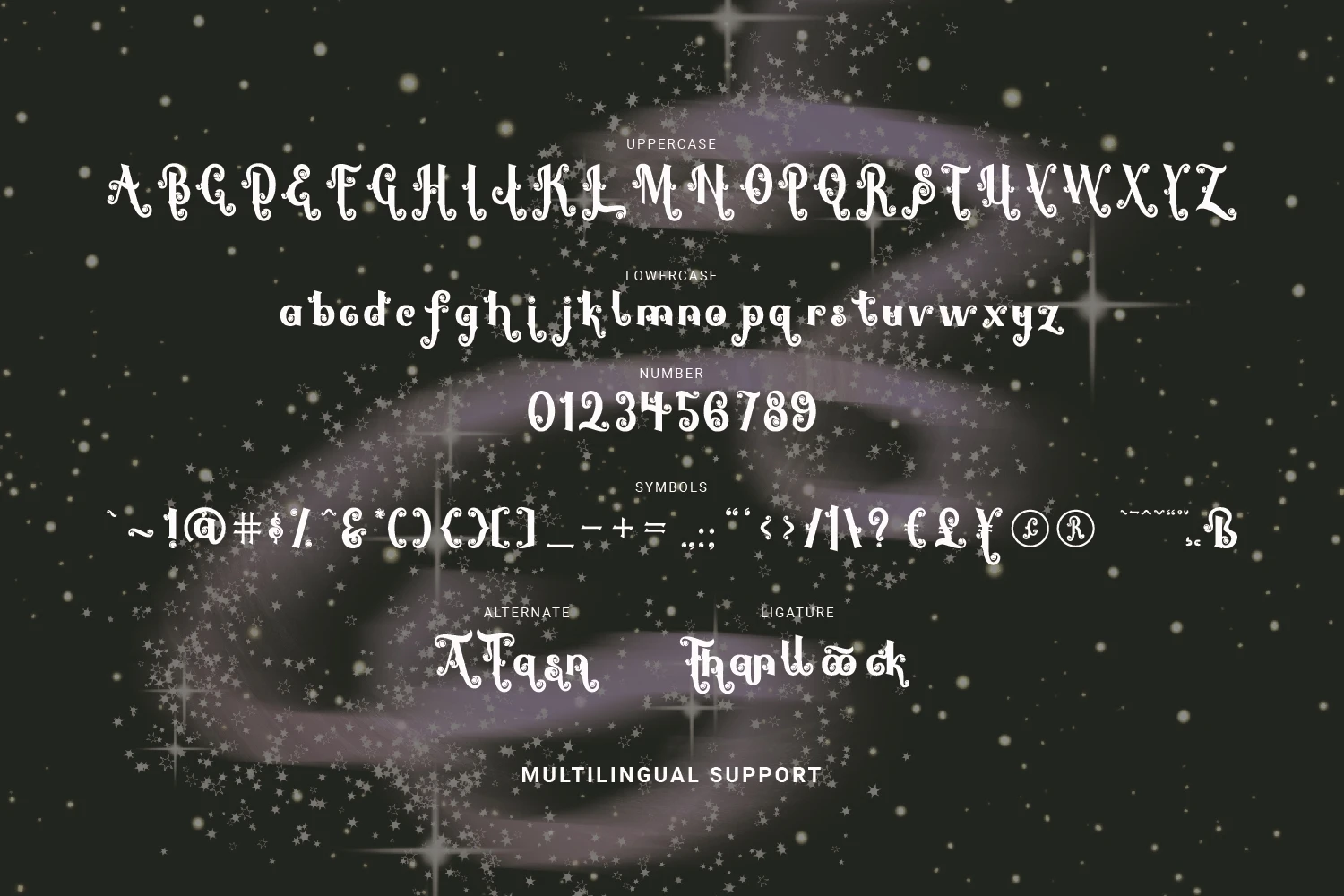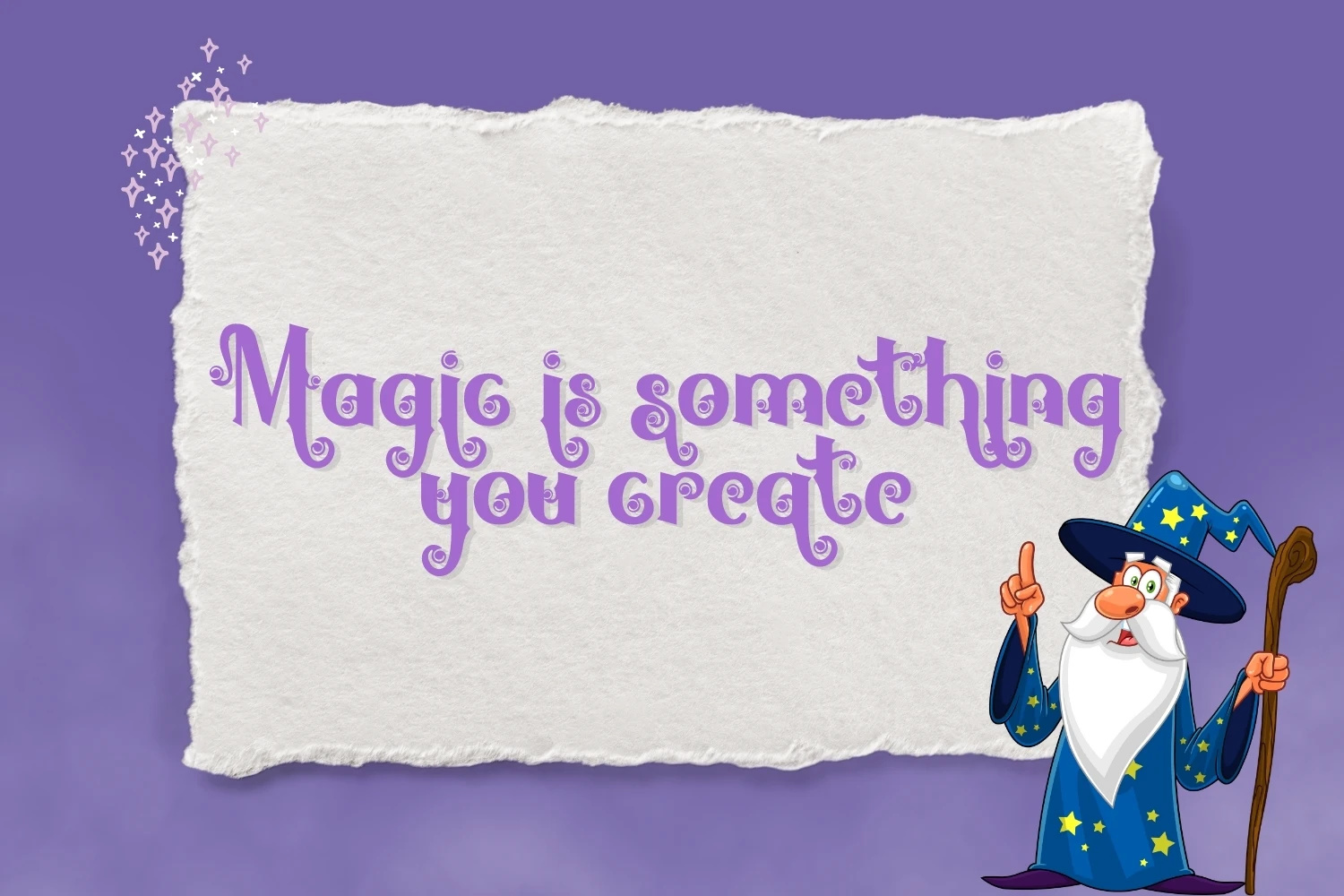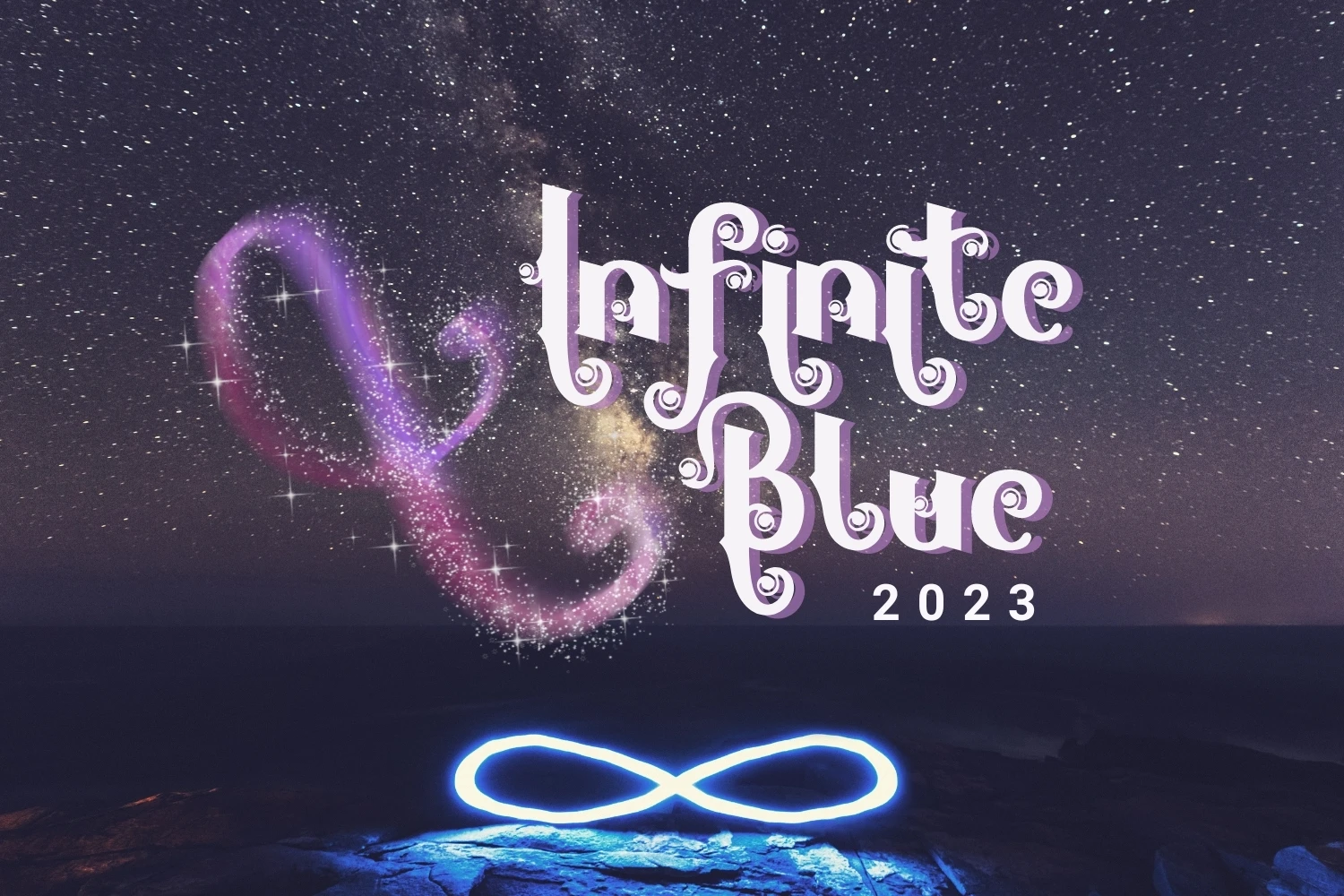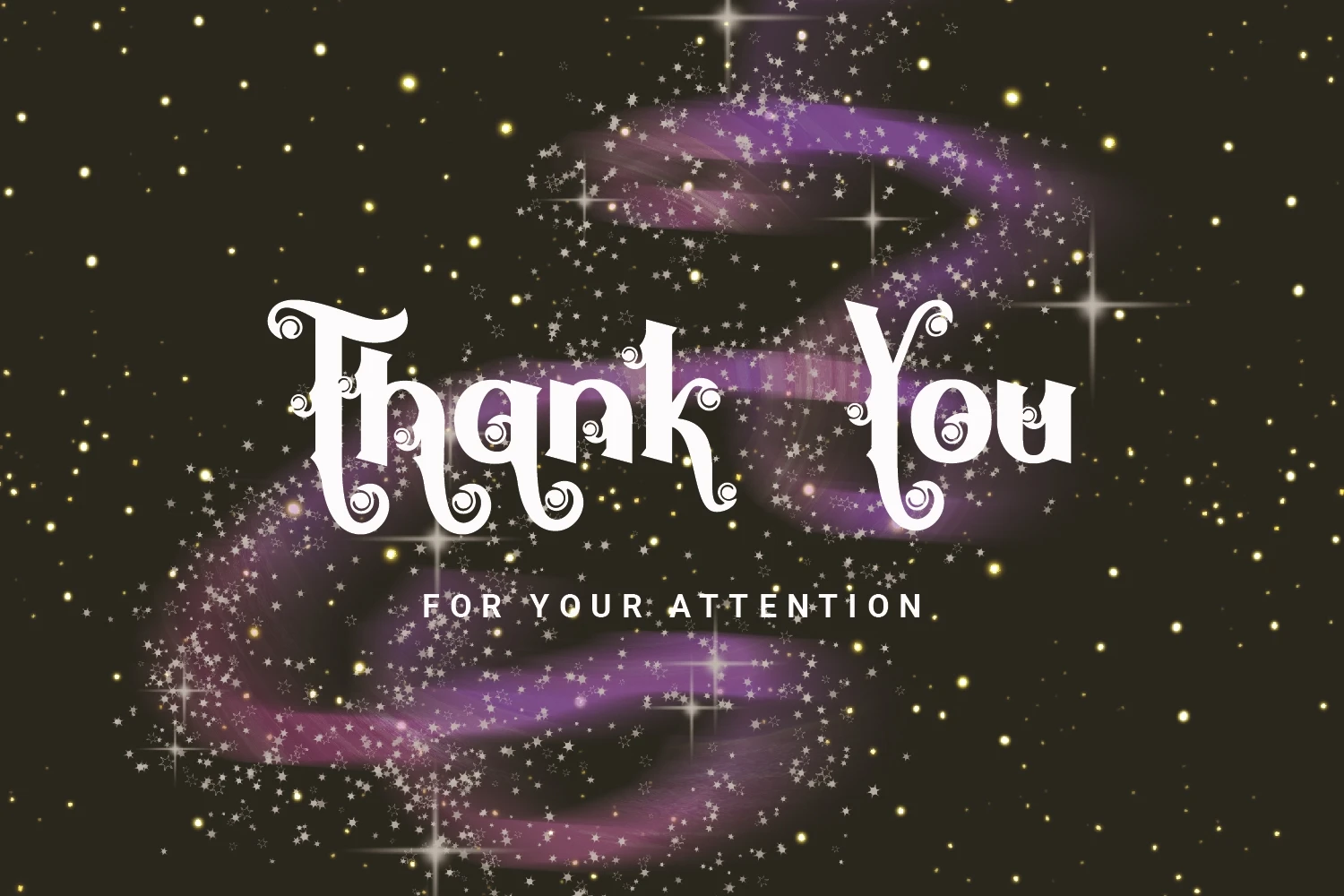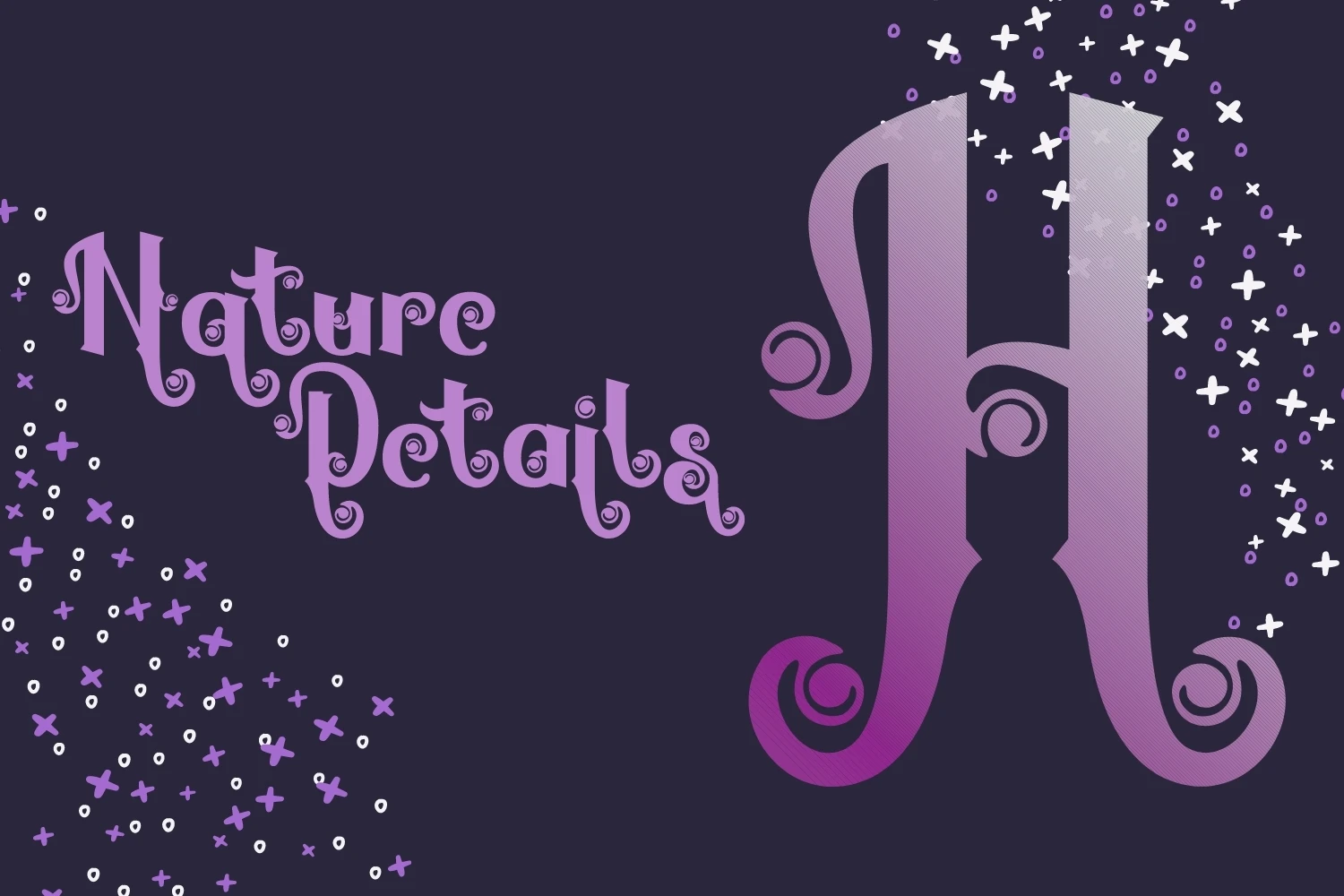
**Mallorick - A Decorative Font** with a calligraphy style, So beautiful on invitation like greeting cards, branding materials, business cards, quotes, posters, and more!
* Tons of glyphs
* Alternates and Ligatures
* Fonts include **Multilingual Support**